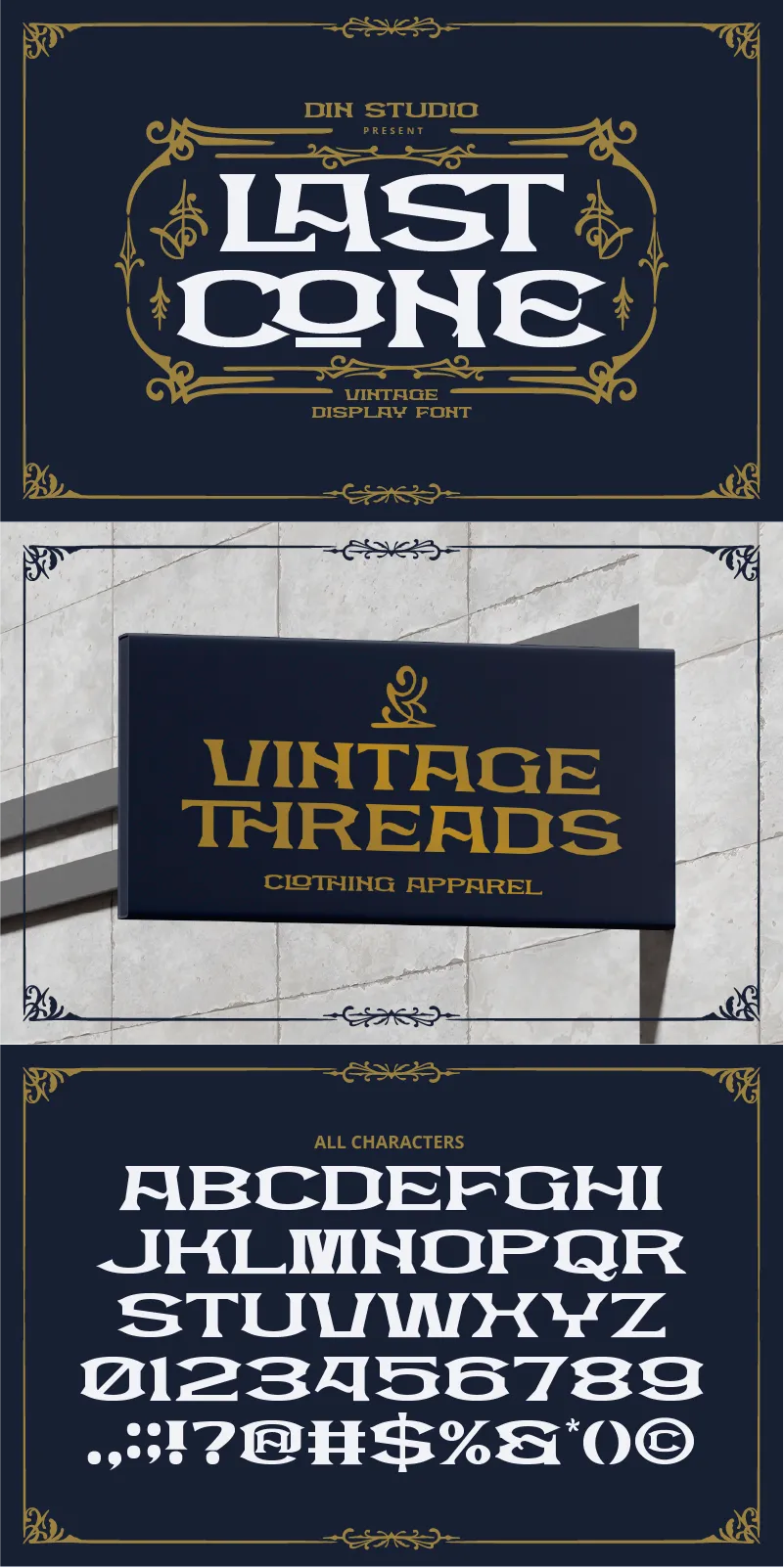
Lastcone Font
About Lastcone
Introducing Lastcone, a unique display font that combines vintage charm with modern design elements. Crafted in uppercases with a balanced weight that’s not too thick, Lastcone delivers a clean and consistent look. The distinctive pentagon-shaped letters, with soft corners, give the font a structured yet approachable feel. Lastcone offers a blend of elegance and boldness that captures attention without overpowering your design. This font gives ornament sets as extra. In addition, enjoy the features here.
Lastcone fits in headlines, logos, posters, branding materials, packaging, print media, editorial layouts, and many more designs. Find out more ways to use this font by taking a look at the font preview.